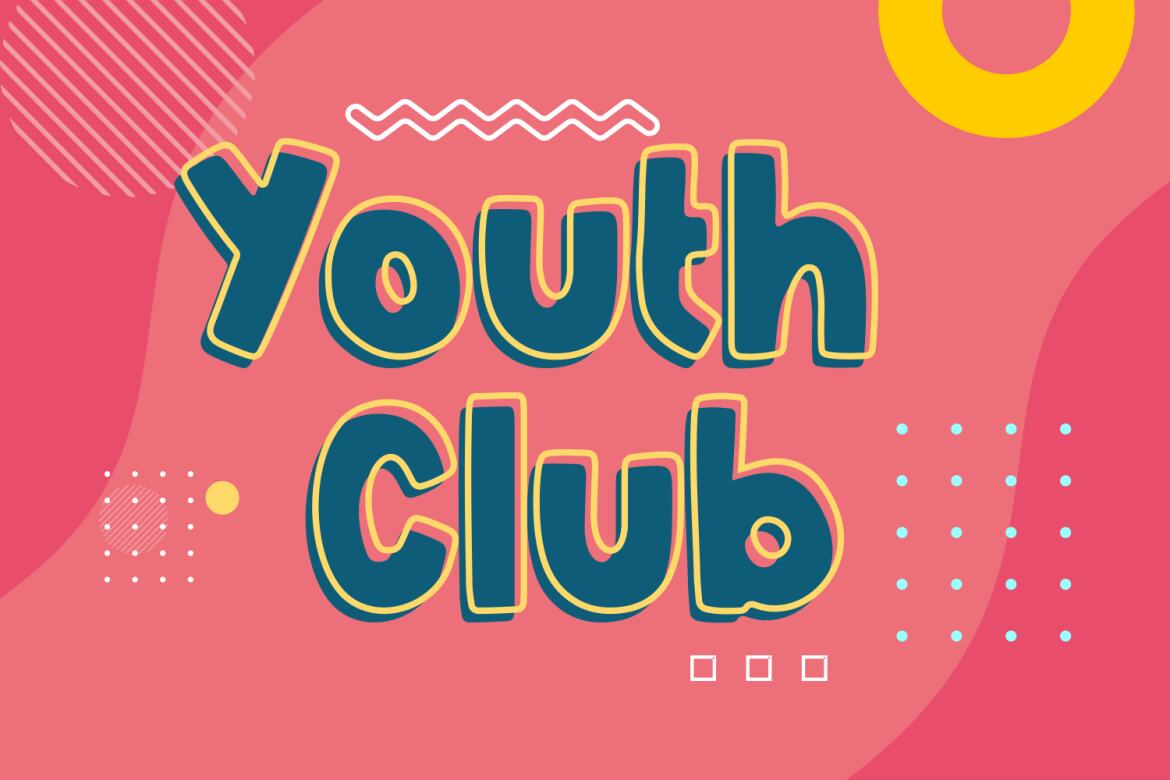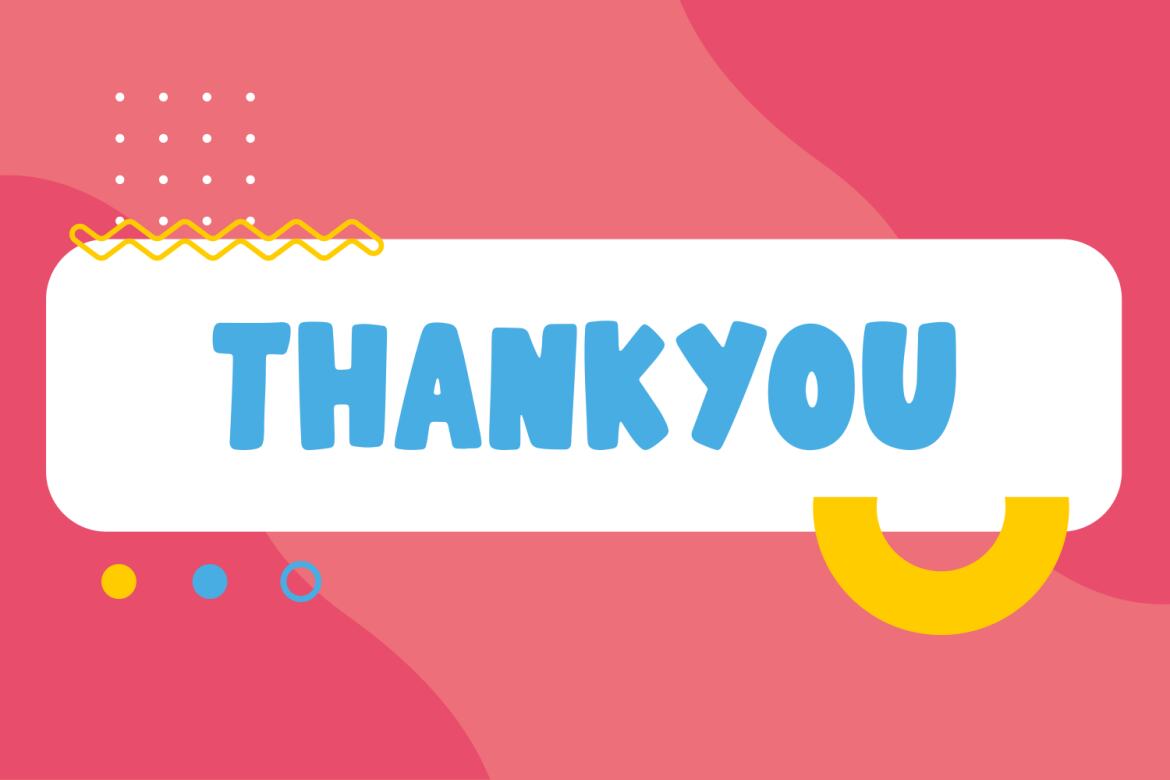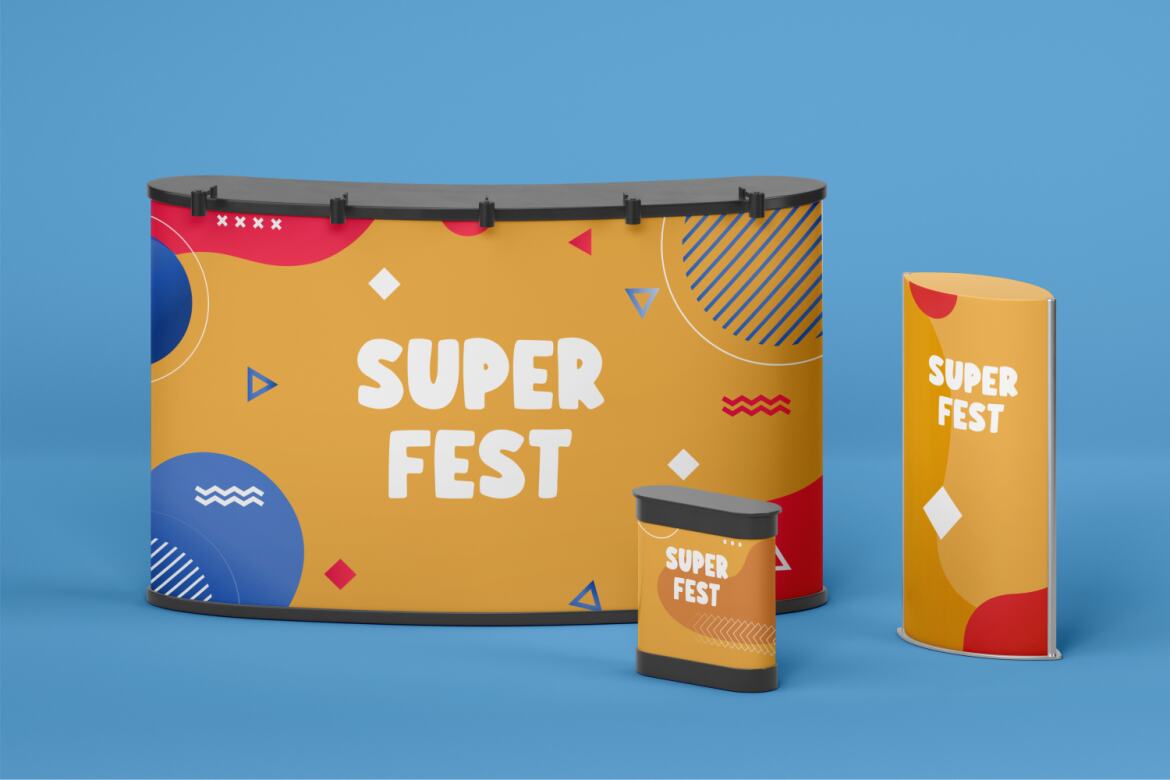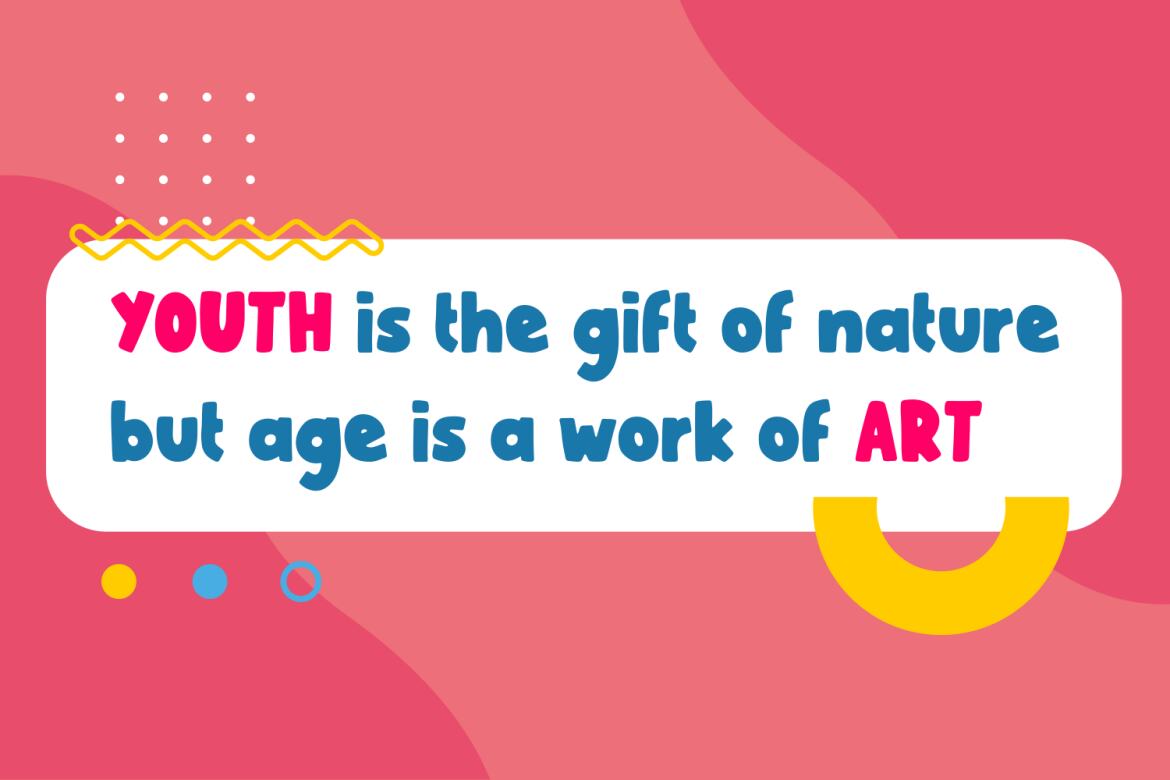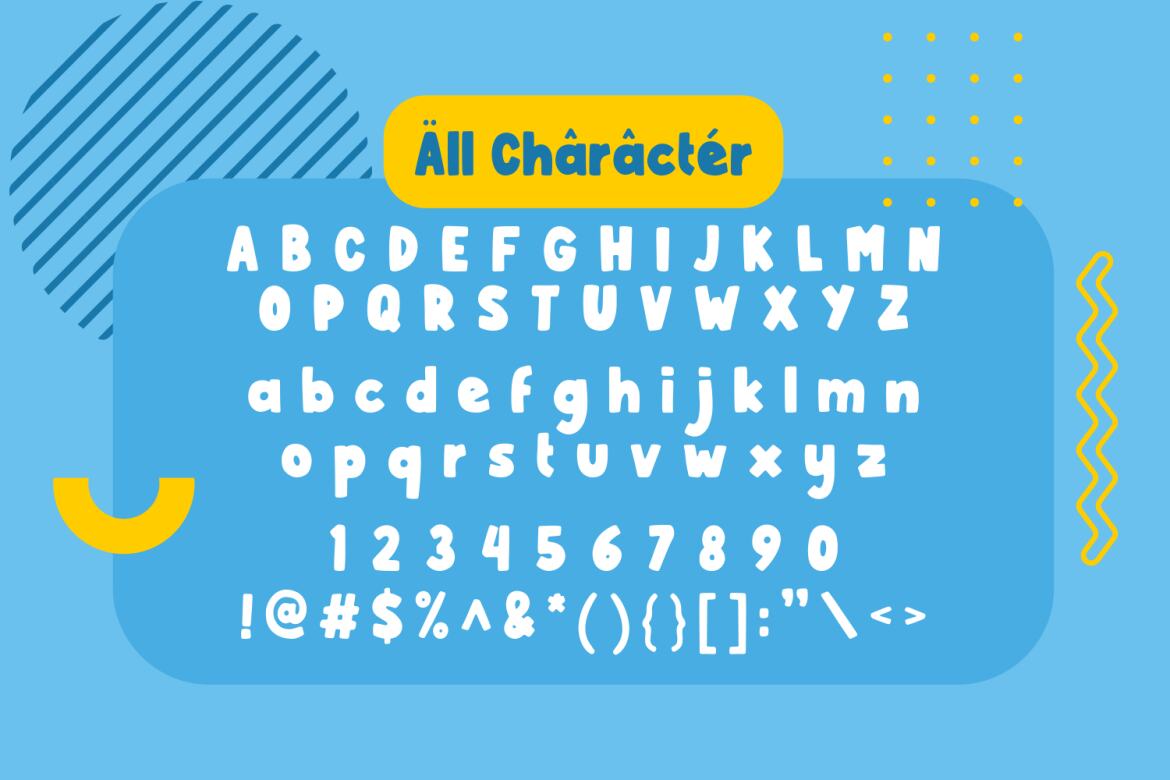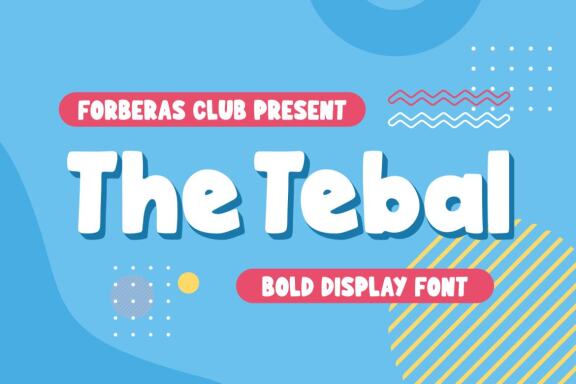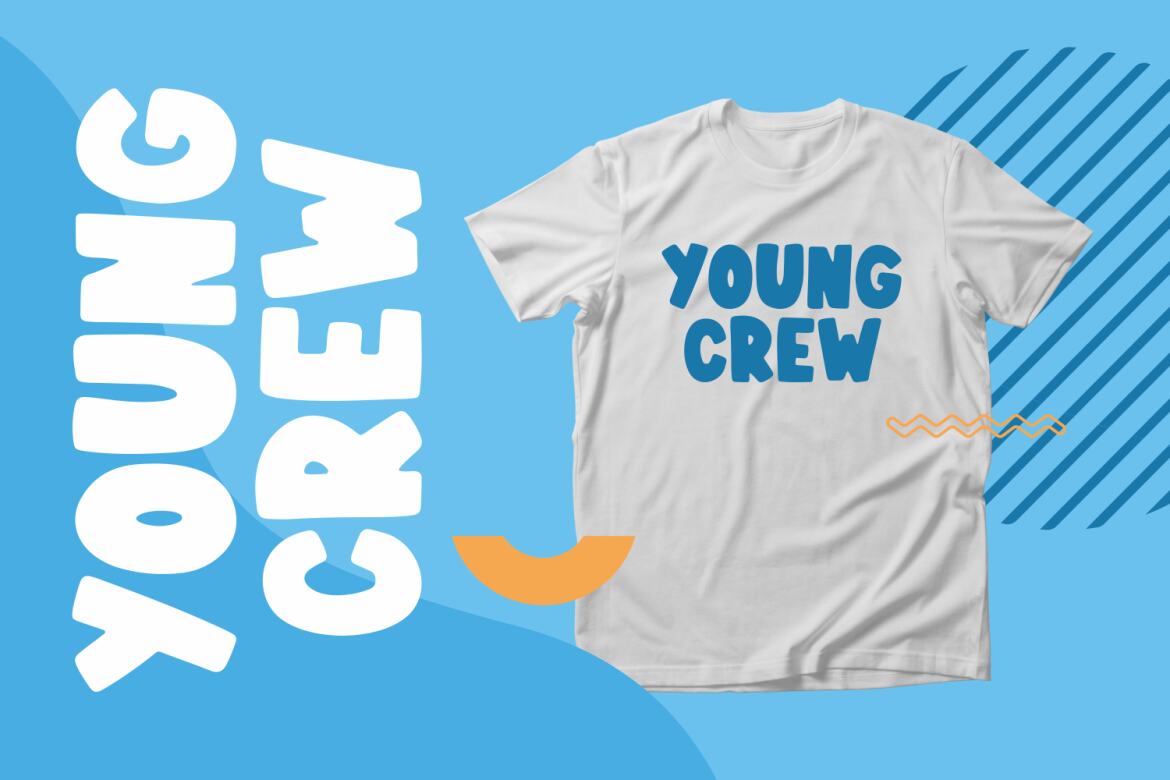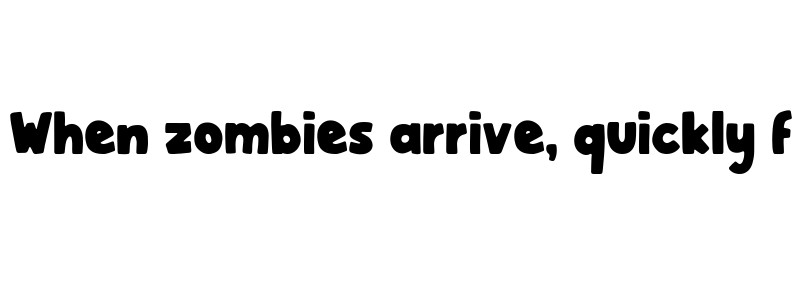
The Tebal - Free Font
Introducing The Tebal by Forberas Club.
The Tebak is a Thick Display Font. The Tebal is perfect for product packaging, branding project, megazine, social media, wedding, or just used to express words above the background. This font includes TTF and OTF, also multilingual support. Enjoy the font, feel free to comment or feedback, send me PM or email.